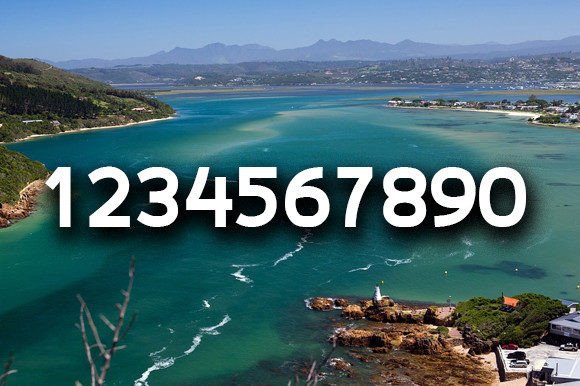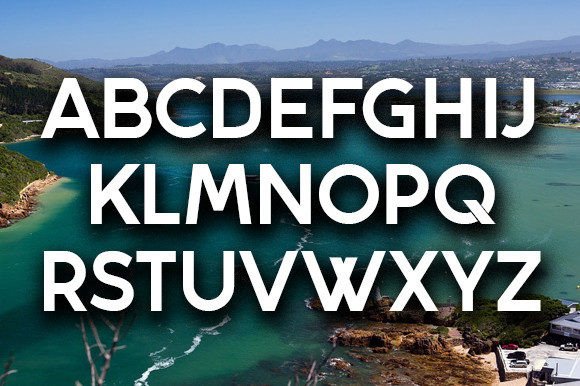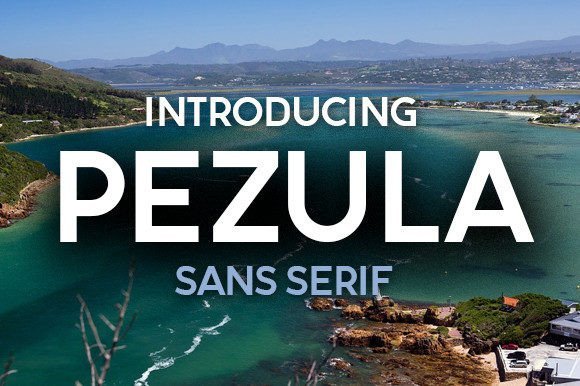
Introduction to Pezula Font
Pezula is awesome Sans Serif font that will look awesome on any of Your projects.
Use this font on posters, flyers and t-shirts .
Why Choose Pezula Font?
Pezula Font offers exceptional quality and versatility, making it a valuable addition to your design toolkit. Whether you’re creating for personal projects or commercial use, Pezula Font delivers professional results.